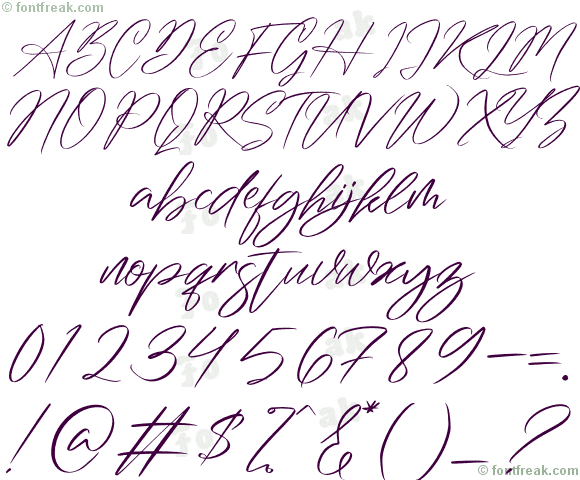
Washington Signature
Washington Signature by Perspectype Studio is a beautifully crafted script font that exudes elegance and sophistication. Released in 2021, this freeware font combines graceful strokes with a modern touch, making it an ideal choice for a variety of design projects. The font features a flowing, handwritten style, characterized by its fluid curves and gentle slants. The stroke weight varies, offering a nice contrast that adds depth and interest, while the spacing between letters is thoughtfully designed to ensure readability without sacrificing its artistic flair.
Washington Signature is perfect for wedding invitations, where its romantic aesthetic can enhance the overall theme. It also works wonderfully on business cards, providing a personal touch that small business owners often seek. In addition, this font is suitable for branding projects, especially for boutique shops or artisanal products, allowing brands to convey a sense of craftsmanship and care. Furthermore, it can elevate restaurant menus, giving a casual yet refined feel that appeals to diners looking for a unique dining experience.
Targeting graphic designers, content creators, and small business owners, Washington Signature is a versatile choice that can adapt to various creative needs. Its unique style allows it to stand out in a crowded market, making it a go-to option for those seeking to make a lasting impression.
What truly sets the Washington Signature font apart is its ability to blend classic elegance with modern sensibilities. It captures the essence of handwritten typography while remaining accessible and functional for digital use. Whether you are designing for print or online platforms, the Washington Signature font free download offers an opportunity to enhance your creative projects with a touch of sophistication.